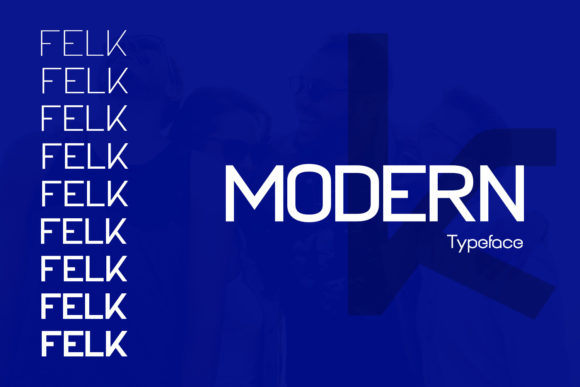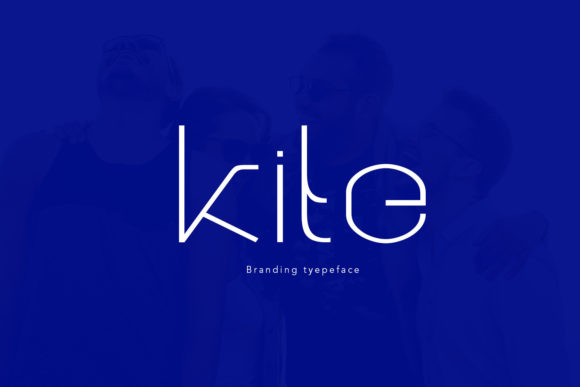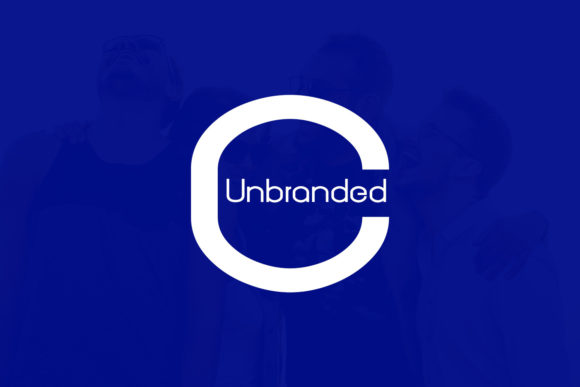
Introduction to Felk Font
Felk is a cool and modern display font.
This font is ideal for writing web designs, business cards, or pretty much anything else that requires a unique touch .
Key Features of Felk Font
Why Choose Felk Font?
Felk Font offers exceptional quality and versatility, making it a valuable addition to your design toolkit. Whether you’re creating for personal projects or commercial use, Felk Font delivers professional results.